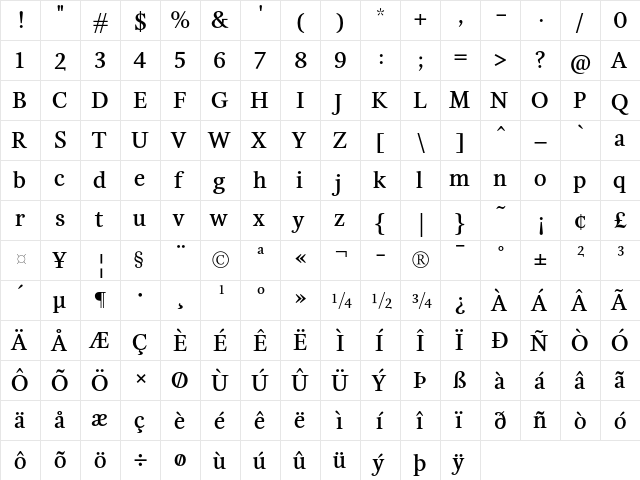
EstaPro Bold
| Foundry | Dino dos Santos _DSType |
| Designer | Dino dos Santos |
Design Context for EstaPro Typeface
EstaPro takes a measured approach to typography — its balanced proportions and neutral character make it a reliable workhorse for both digital and print work. Its bold stroke weight gives it real presence on the page.